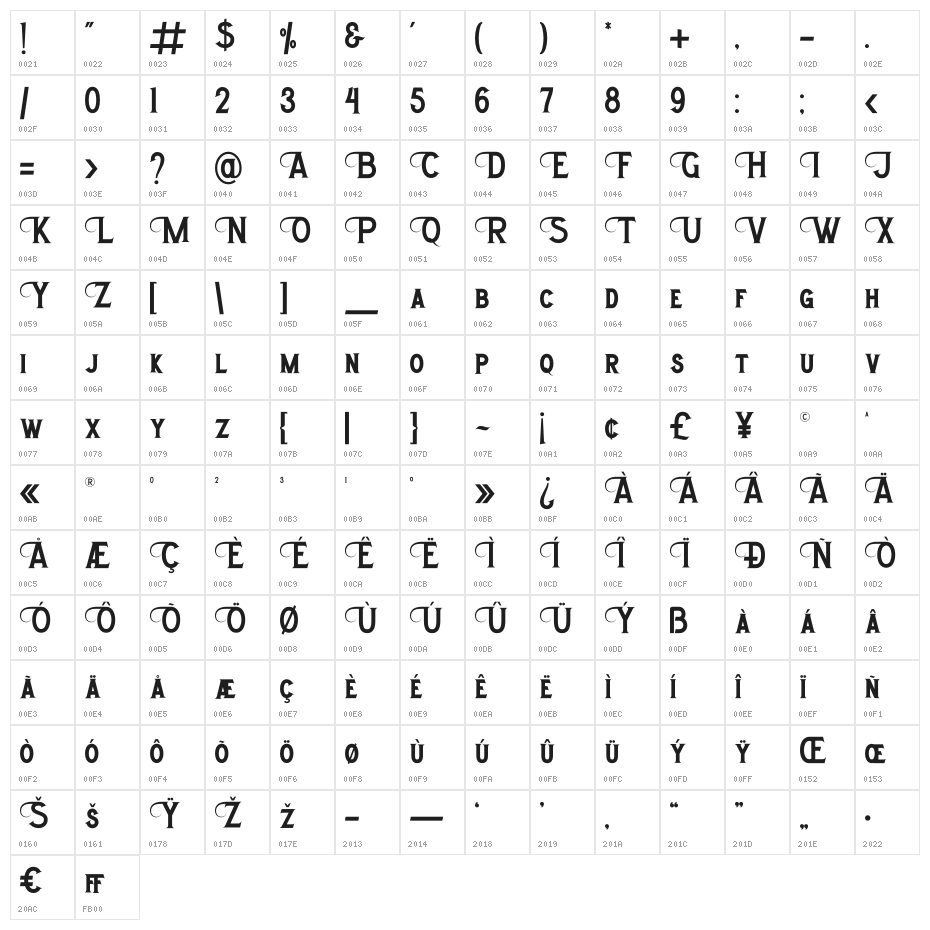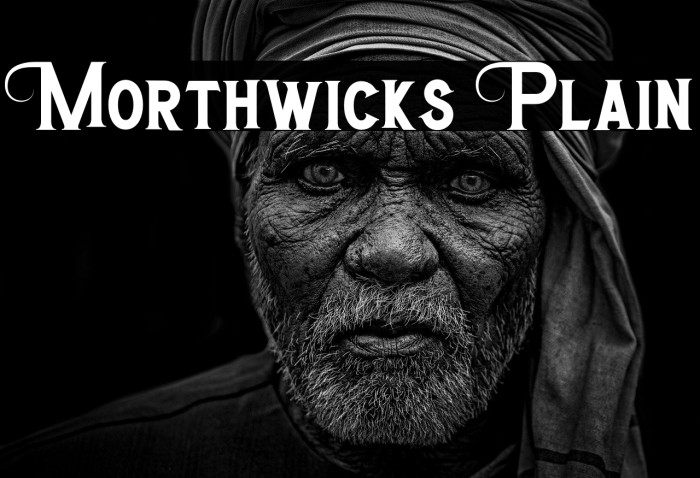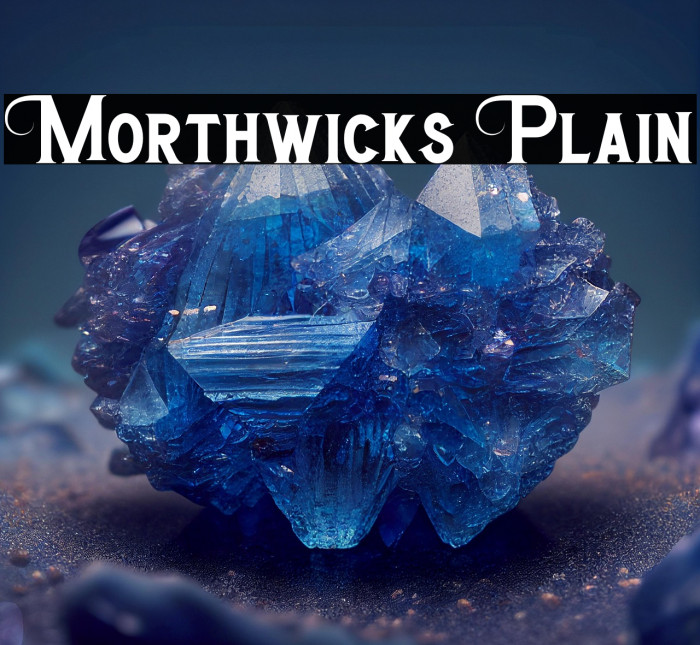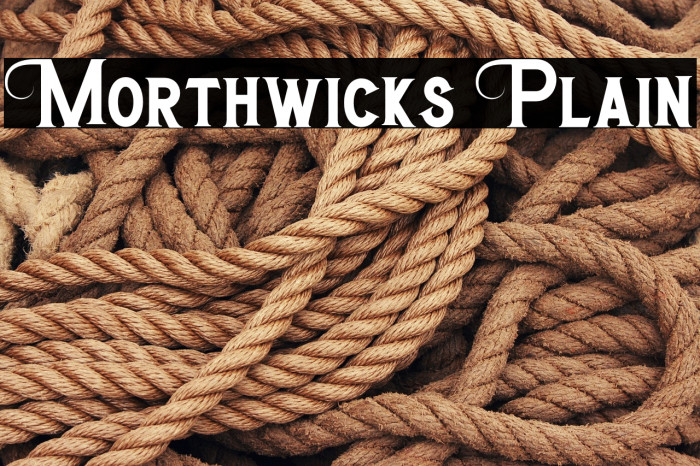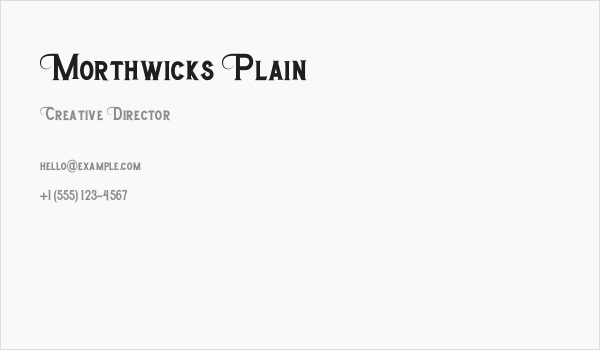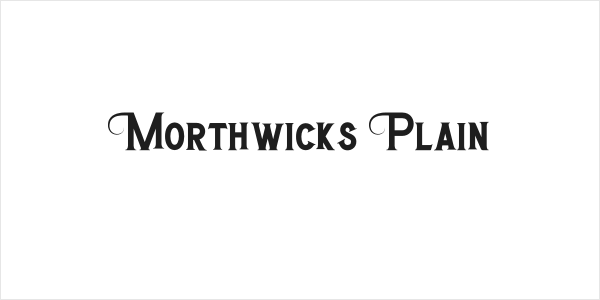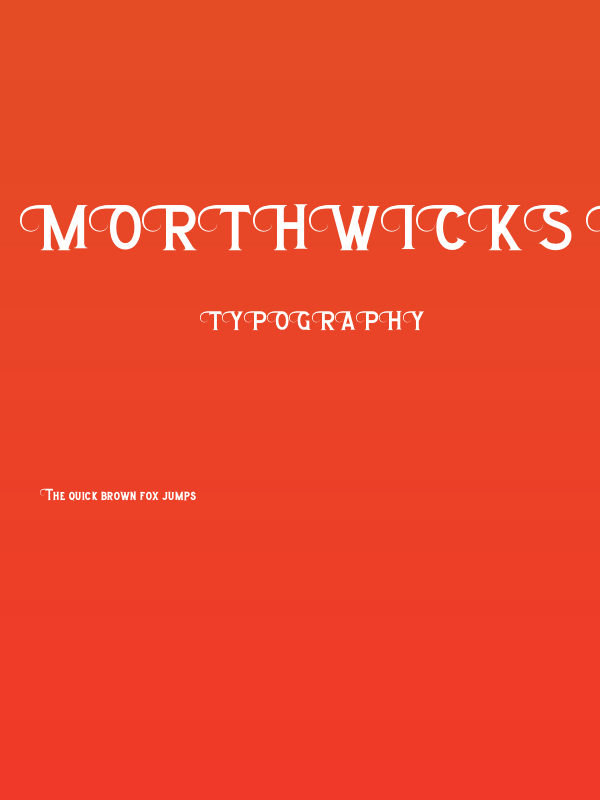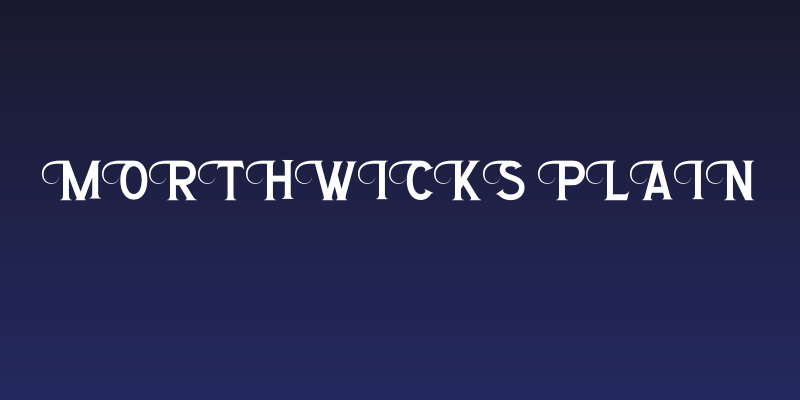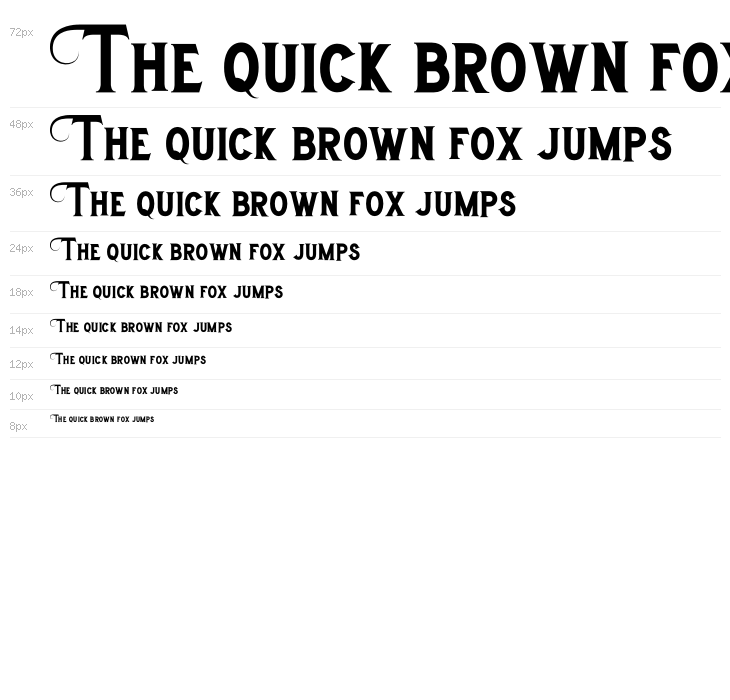
Morthwicks Plain Font
Morthwicks Plain Description
This font features a bold and decorative style with a unique flair in its design. The uppercase letters have a distinct, elegant curve, particularly noticeable in characters like 'A', 'G', and 'Q'. The lowercase letters maintain a consistent style, providing a cohesive look. The numbers are bold and clear, making them easily readable. Special characters are designed with the same decorative flair, adding to the overall aesthetic. This font is perfect for making a statement, with its eye-catching and artistic appearance.
| Proposed Projects | Ideal for branding, poster design, headlines, and any project needing a bold, artistic touch. |